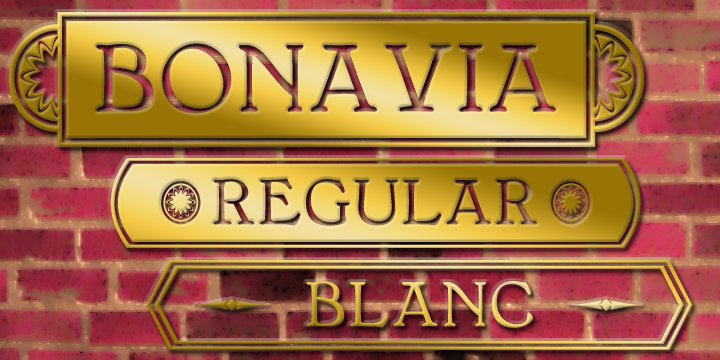
BonaVia is an adaptation of Greater Albion’s Bonning and Bonnington families. Its purpose made to enable the construction of banners and mastheads in the style of traditional streetsigns, and offered in Regular and ‘Blanc’ faces.
A selection of decorative ends and fleurons are included.
BonaVia is splendid on posters, signage, book and CD covers and labels with a period feel.